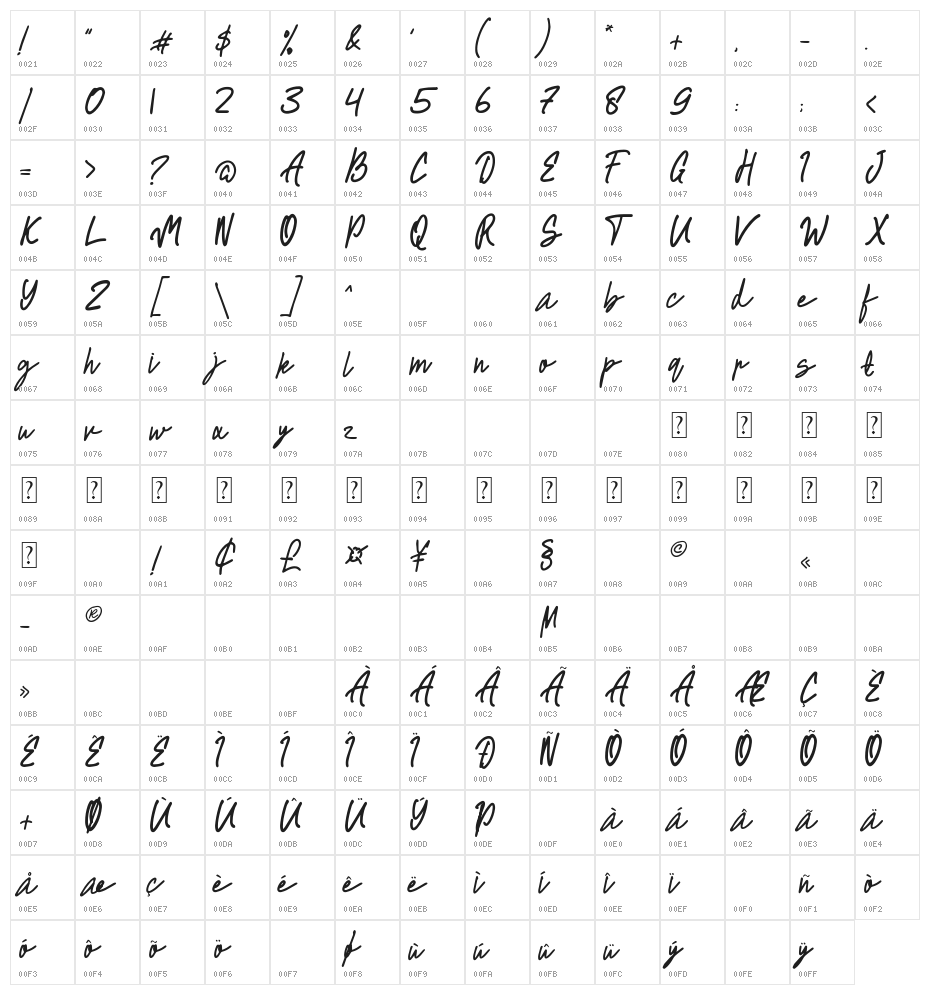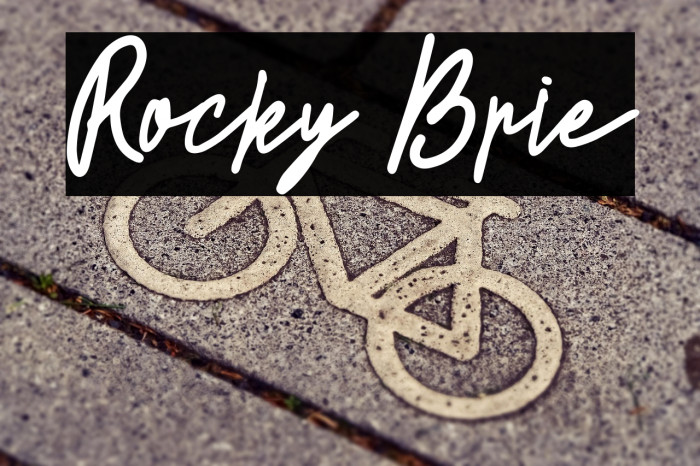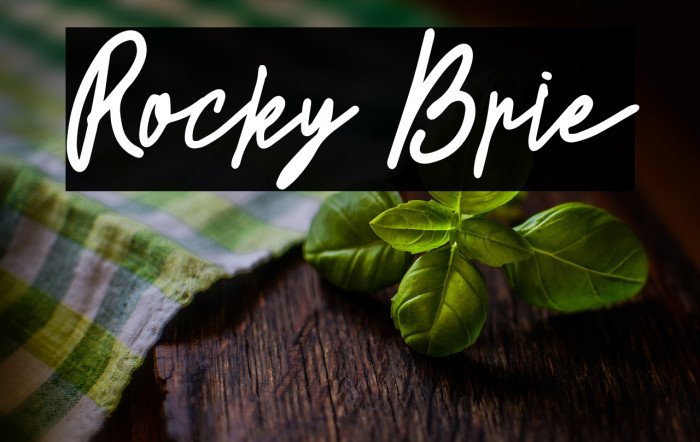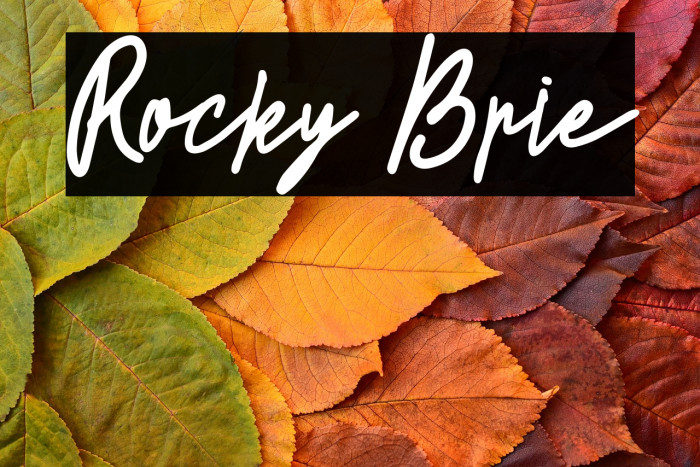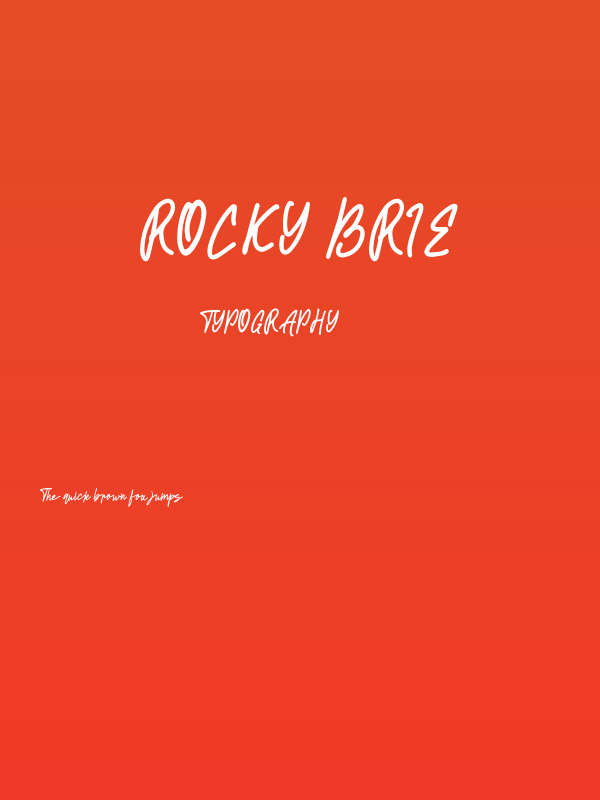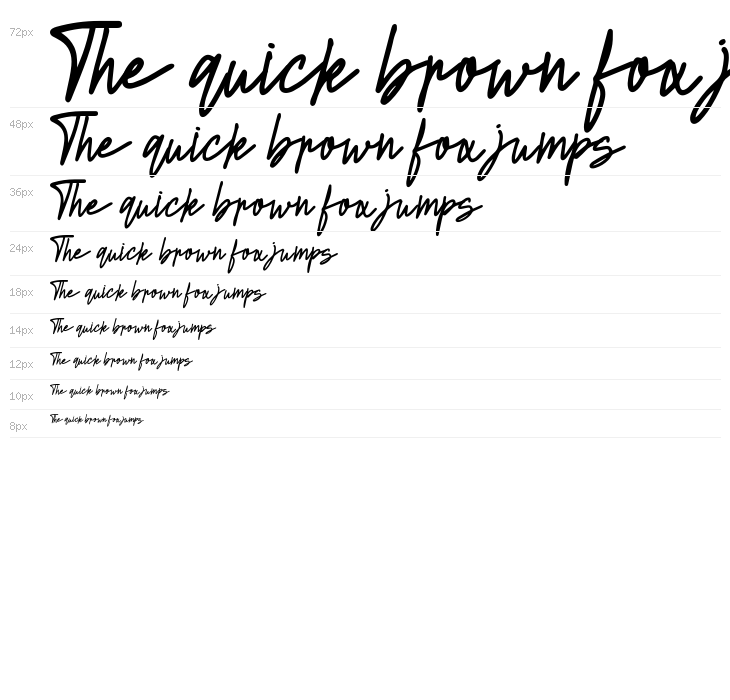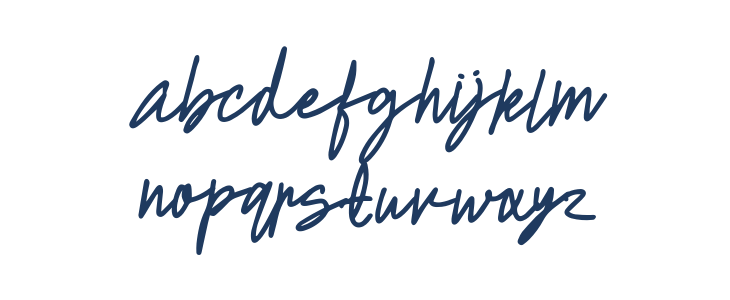
Rocky Brie Font
Rocky Brie Description
This font exhibits a dynamic and fluid handwritten style, characterized by its smooth, flowing strokes and a natural, organic appearance. The letters are connected in a cursive manner, giving it a personal and informal touch. The uppercase letters maintain a consistent height, while the lowercase letters vary slightly in size, adding to the font's casual elegance. The numerals are bold and slightly rounded, complementing the overall aesthetic. Special characters are well-integrated, maintaining the same flowing style. This font is ideal for projects that require a personal, approachable feel, such as invitations, greeting cards, or branding materials that aim to convey warmth and friendliness.
Overall StyleCasual, Elegant
Use CaseHeadlines, Logos, Invitations
Proposed ProjectsIdeal for invitations, greeting cards, personal branding, and informal communication.